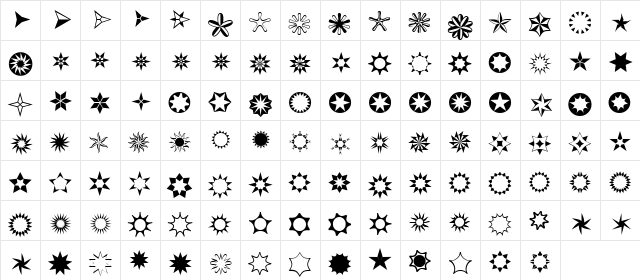
XStarPieces Regular Free Font
XStarPieces Regular
Design Context for XStarPieces
XStarPieces is a composed and adaptable typeface that performs quietly and consistently across a wide range of design contexts.